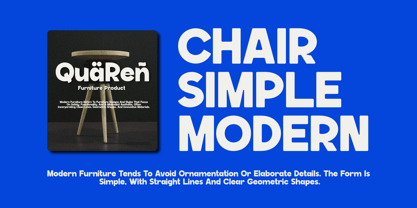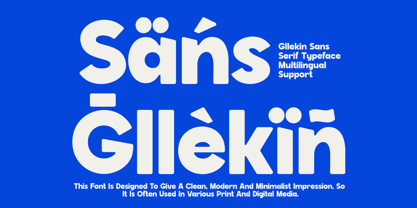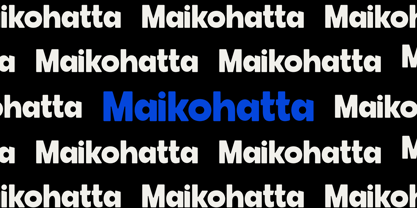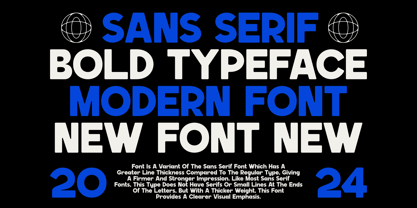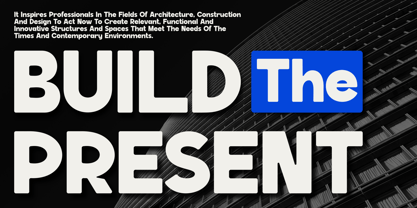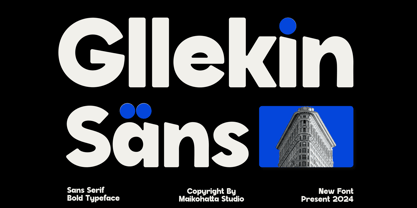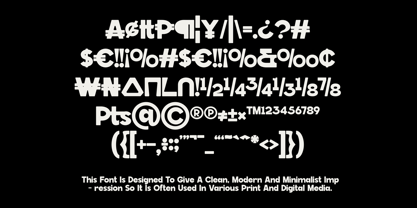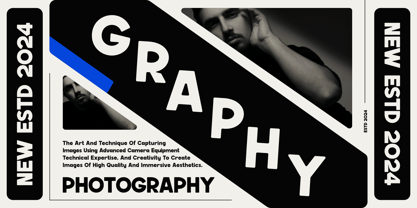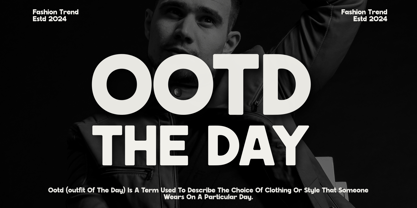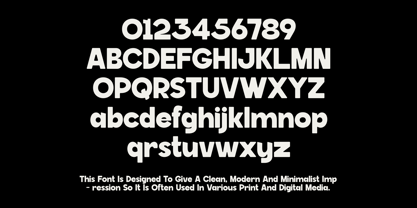
Gllekin
by Maikohatta
The Gllekin Font Family was designed by Gilang Ternadho and published by Maikohatta. Gllekin contains 1 styles.
Introducing our new product Gllekin - Modern Sans Serif Typeface
This Font is a very flexible choice and can be used in a variety of design contexts. Its ability to provide a clean, professional, contemporary look and its simplicity and visual appeal make this font good for use in the world of graphic design and modern typography.
Designers: Gilang Ternadho
Publisher: Maikohatta